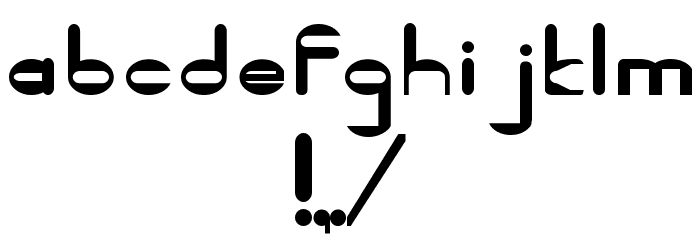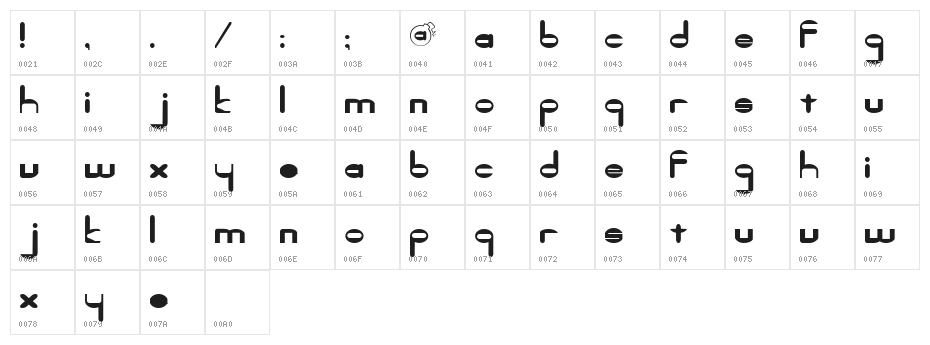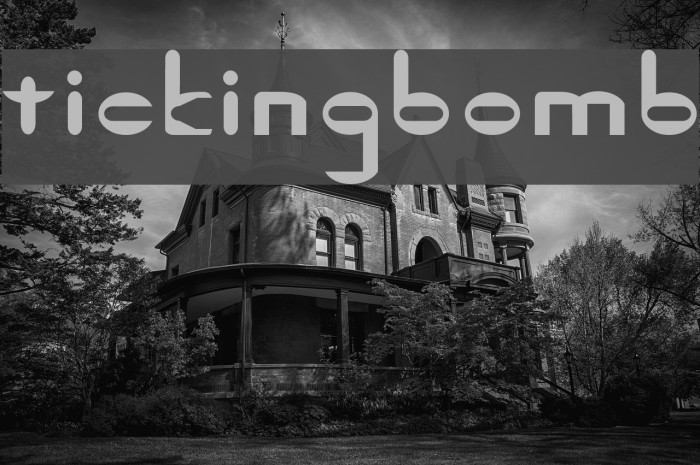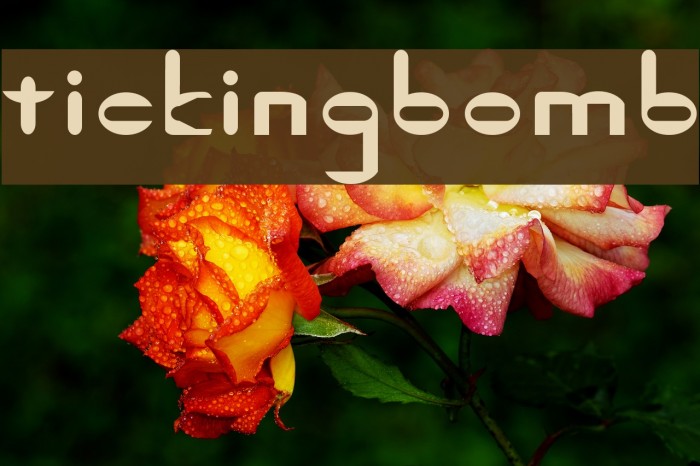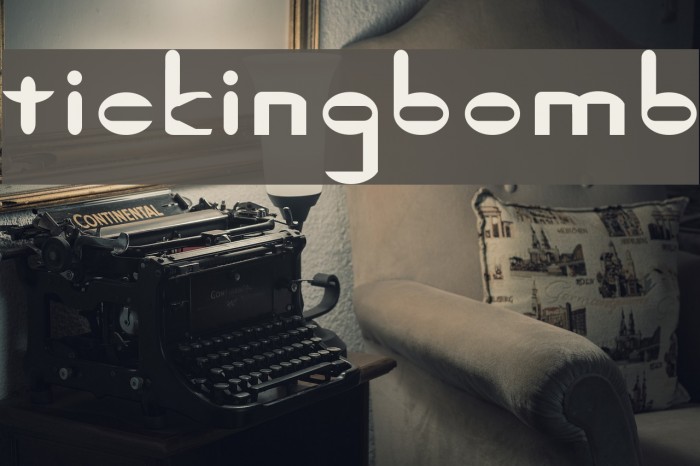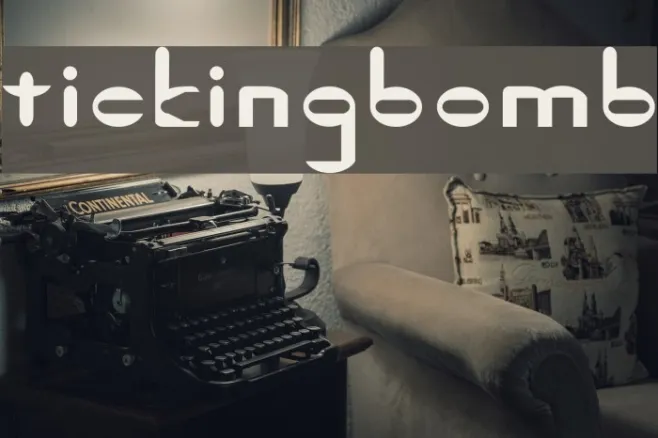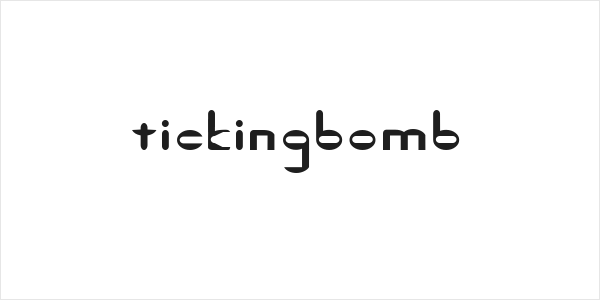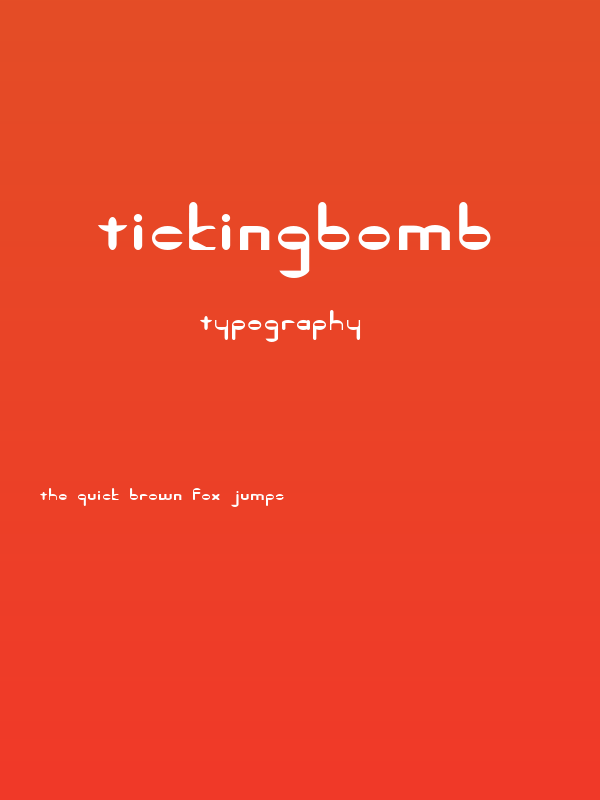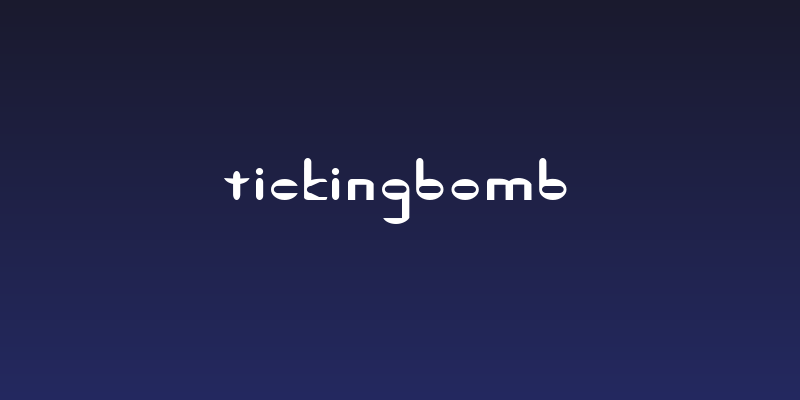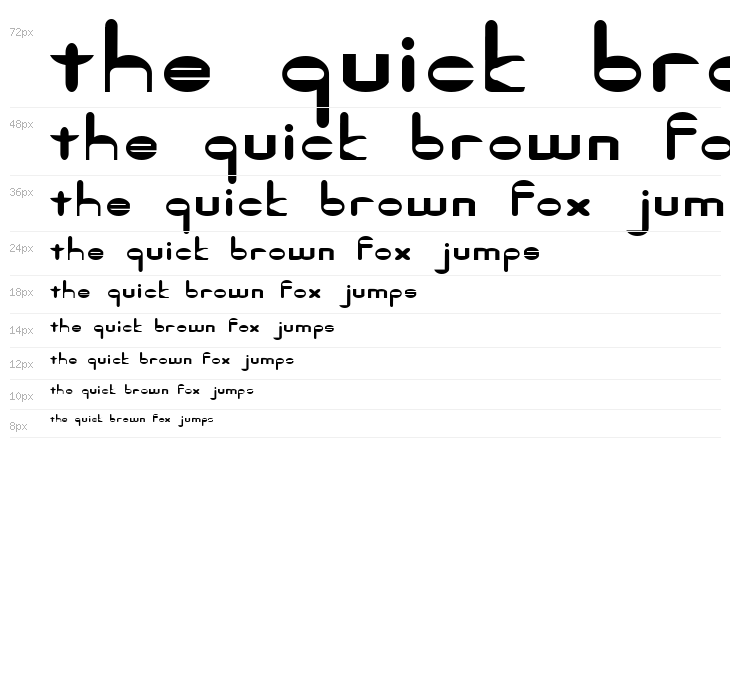
TickingBomb Font
TickingBomb Description
This font features a unique, futuristic design with rounded edges and a geometric structure. The characters are uniform in height, creating a cohesive and modern appearance. The lowercase letters have a playful yet sophisticated look, with consistent stroke thickness that adds to the font's readability. The uppercase letters maintain the same aesthetic, providing a seamless transition between cases. The numerals and special characters are designed to match the overall style, ensuring versatility across different uses. This font is ideal for projects that require a contemporary and innovative feel.
| Use Case | Logos, Headlines, Digital Interfaces |
| Proposed Projects | Ideal for tech branding, modern advertising, digital interfaces, and innovative product packaging. |